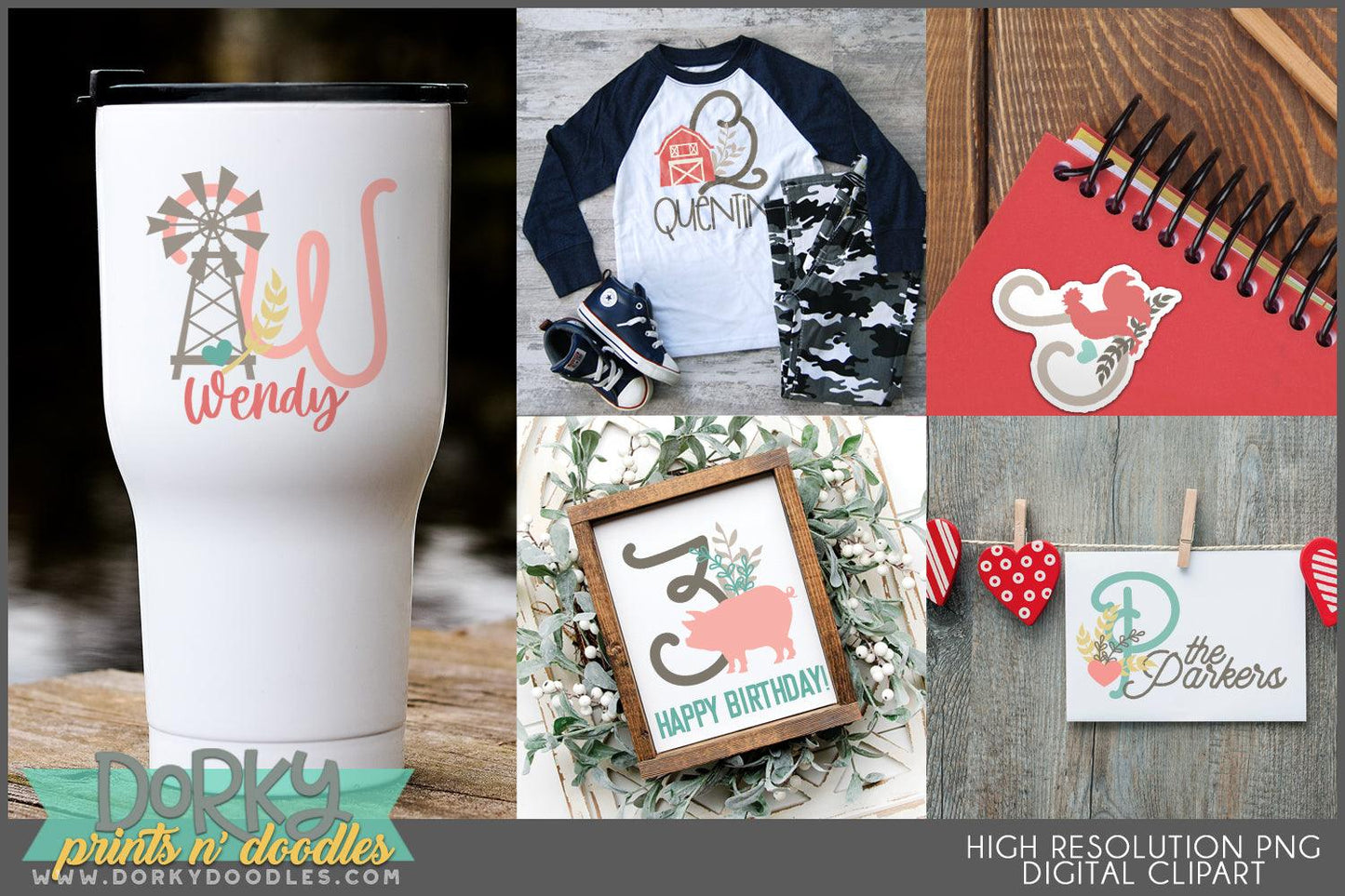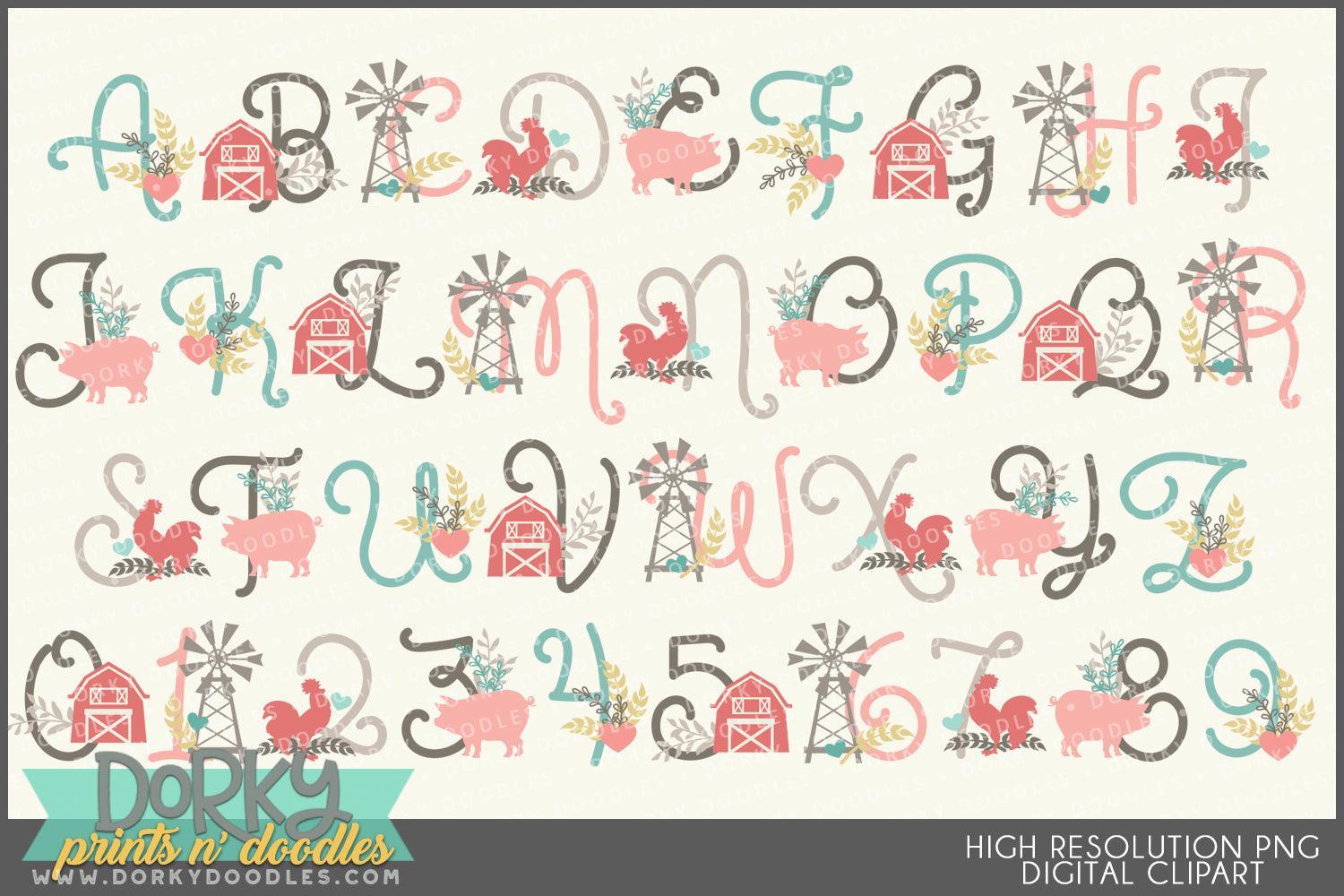
Farmhouse Alphabet Clipart
These cute farmhouse alphabet clipart images look fabulous on cards, in scrapbooks, party invitations, planner stickers, sublimation projects, and decor! You will get 6 Digital Clip Art images in high resolution PNG format (they come as a ZIP file that you can download instantly once payment has cleared).
• the full alphabet and numbers 0-9 using flowers, barns, windmills, roosters, and wheat